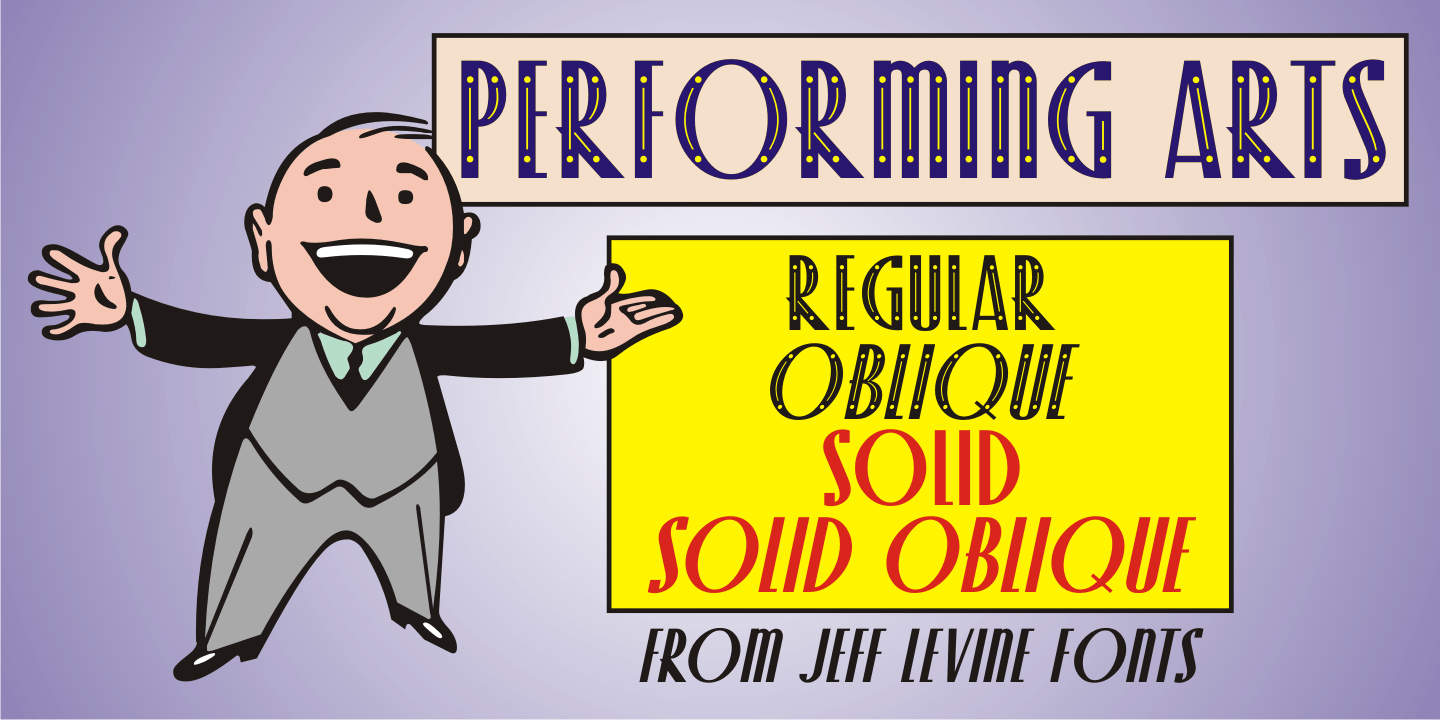
Performing Arts
The sheet music for 'I Used to be Color Blind' (from the 1938 Fred Astaire-Ginger Rogers movie 'Carefree') had its title crafted in ornate Art Deco hand lettering.
Keeping the original letter forms, the interior embellishment was simplified to a dot-and-line pattern [eliminating a secondary squiggly line] for a cleaner look.
The type design is now digitally available as Performing Arts JNL, in both regular and oblique versions. For those who prefer no ornamentation, there are also regular and oblique versions in solid form.